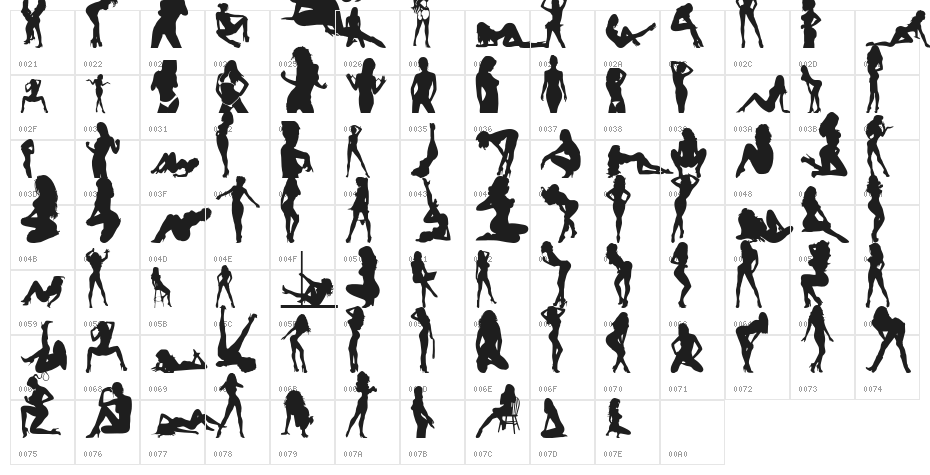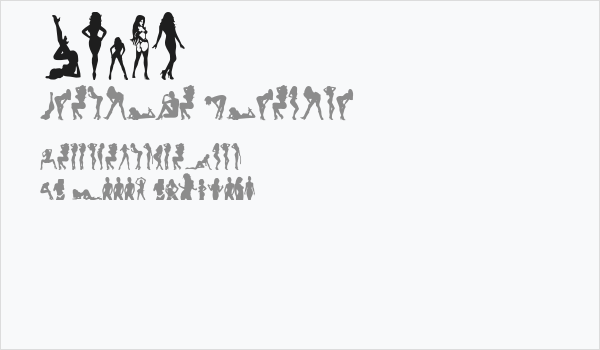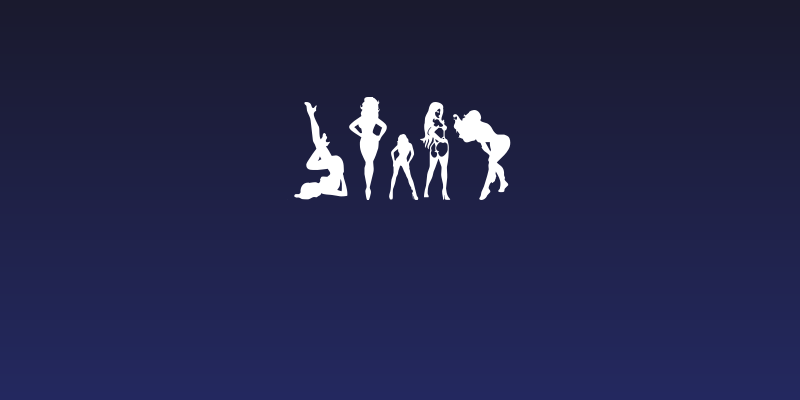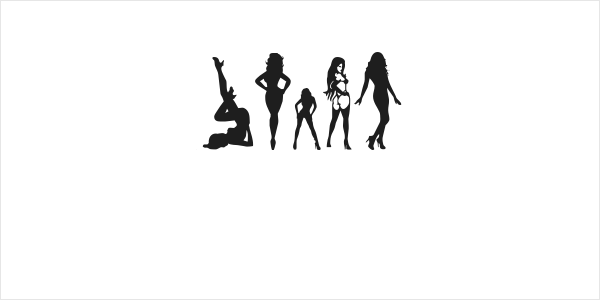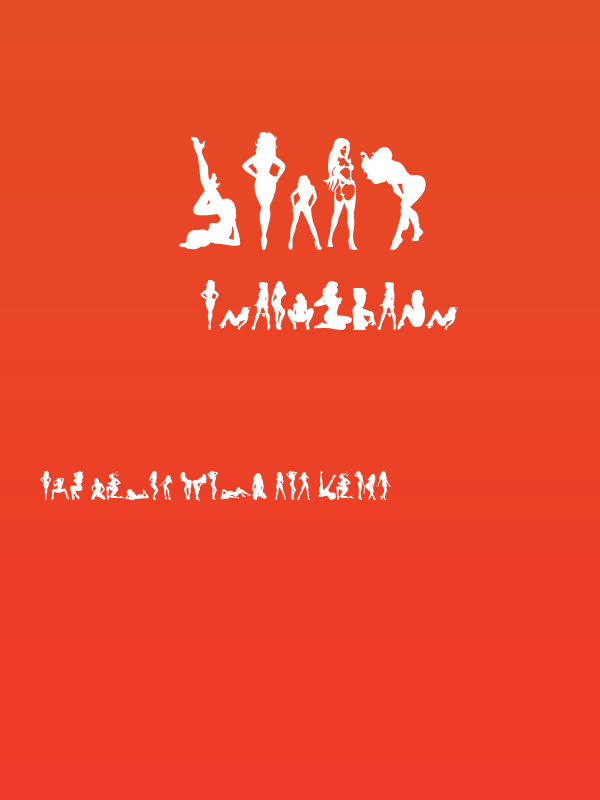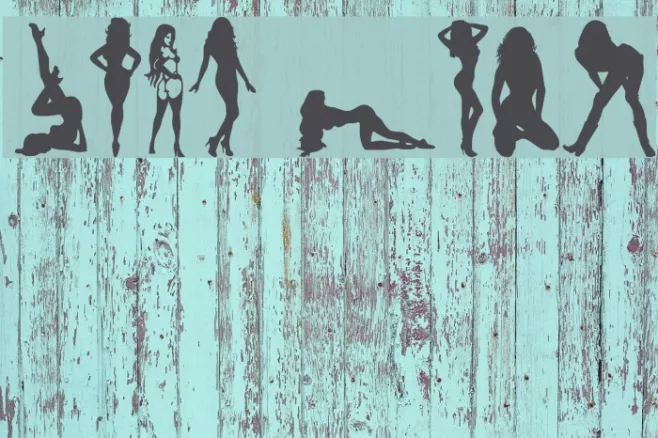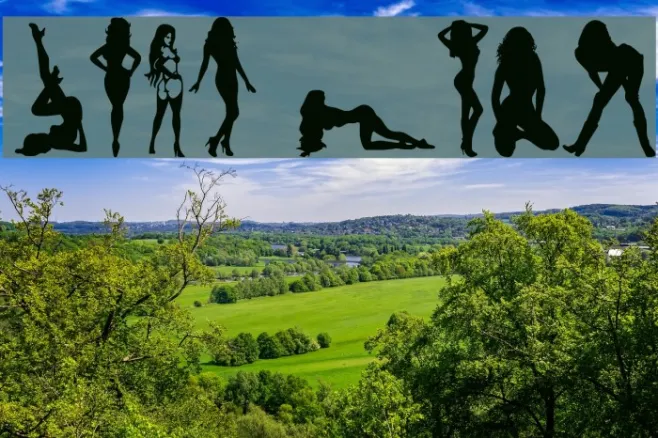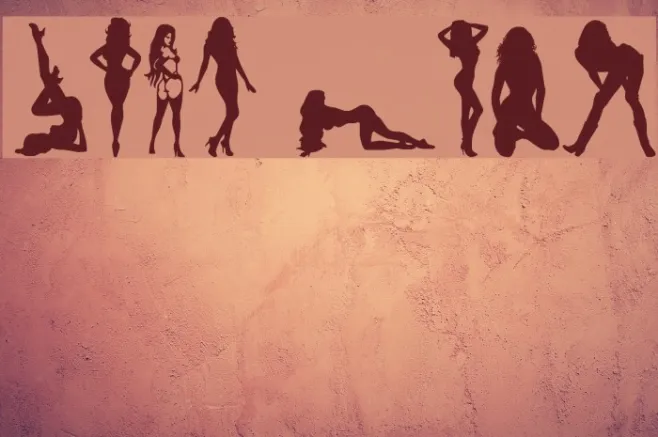
A decorative font composed of black silhouette figures of women in various poses, used as glyphs representing letters and symbols.
| Overall Style | Decorative, Artistic |
| Use Case | Headlines, Logos, Themed designs |
| Proposed Projects | Artistic posters, themed invitations, adult entertainment branding, creative design projects. |